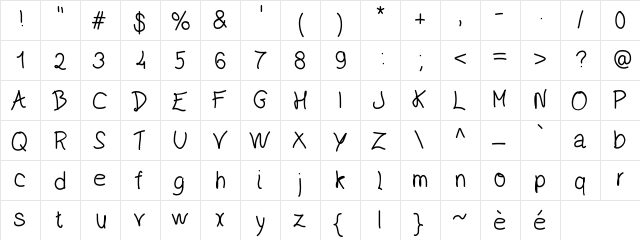
Ecriture Medium Free Font
Ecriture Medium
Design Context for Ecriture
Ecriture is a composed and adaptable typeface that performs quietly and consistently across a wide range of design contexts.